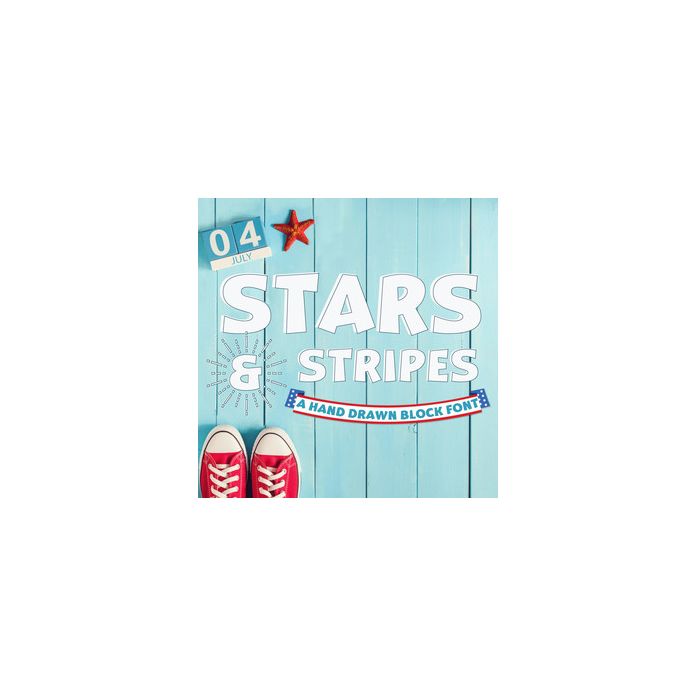
This bold and eye-catching font is perfect for any design that needs a patriotic touch. The silhouette stars and stripes font features a clean and modern sans serif style, making it versatile for a variety of projects. Whether you're creating a flyer, poster, or logo, this font will make a statement. 499 Glyphs included.